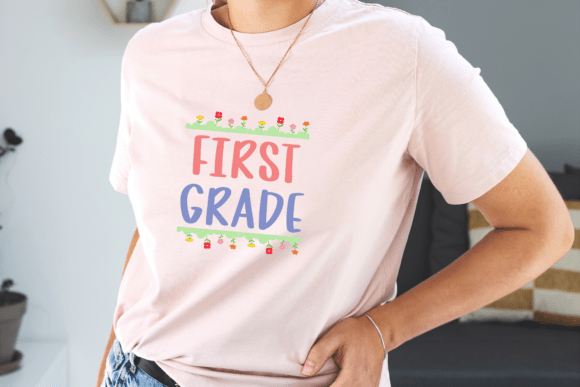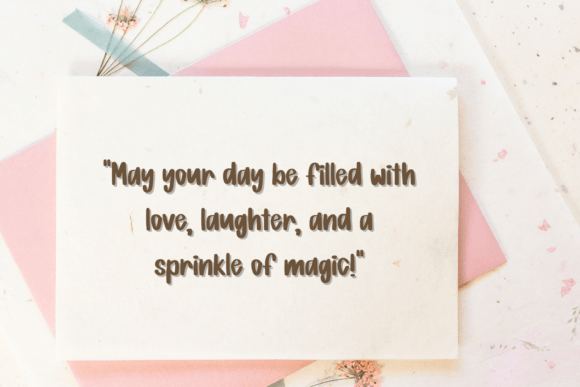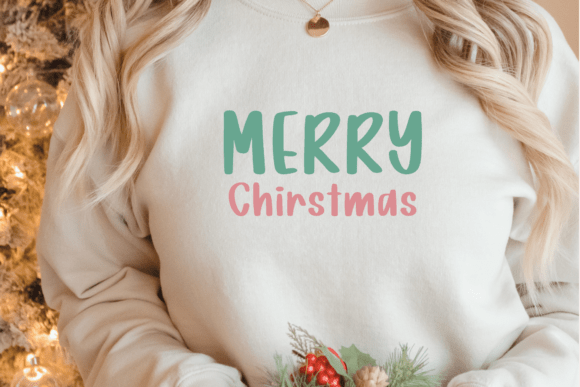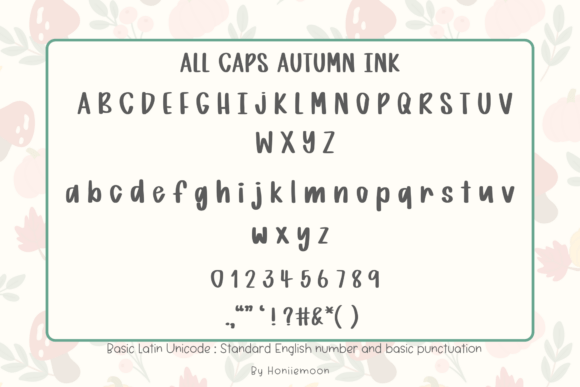
Cozy Up with Autumn Ink: The Ultimate Handwritten Script Font
As designers, we’ve all been there – stuck on a project, searching for that perfect font to bring our vision to life. I recall working on a fall-themed craft project, determined to capture the warmth and coziness of the season. That’s when I stumbled upon “Autumn Ink,” a delightfully charming handwritten script font that instantly transported me to a world of creative possibilities.
First Impressions: A Love Affair with Autumn Ink
Picture the warmth of fall, the leaves turning, the subtle aroma of pumpkin spice – “Autumn Ink” condenses all of these cozy autumn vibes into every stroke it paints. This font is an undeniable way to bring that autumn comfort into your creative projects. Here’s what I love about it:
- ✨ A playful, casual allure that’s perfect for fall-themed designs
- ✅ Infectious sense of fun that adds a personal touch to any project
- 💫 Beautifully crafted to evoke the warmth and coziness of the season
- 🎨 Highly versatile and adaptable to various design styles
A Few Quirks to Consider
While “Autumn Ink” is an amazing font, it’s not without its limitations. Here are a few things to keep in mind:
- ⚠️ May not be suitable for very formal or traditional designs
- ⚠️ Limited use of uppercase letters, but perfect for titles and headings
- Experiment with OpenType features, such as ligatures and stylistic alternates, to add personality to your text
The Story Behind Autumn Ink
While the true story behind “Autumn Ink” remains a mystery, it’s easy to imagine a designer sitting by a cozy fireplace, surrounded by fall leaves and warm lighting, crafting this beautiful font. The attention to detail and love that went into creating “Autumn Ink” shines through in every stroke.
| Font Name | Autumn Ink Font |
| Author | Honiiemoon |
| What makes Autumn Ink unique? | Its playful, casual allure and infectious sense of fun, perfect for capturing the essence of fall. |
| Is Autumn Ink suitable for body text? | While beautiful, “Autumn Ink” is best used for titles, headings, and short paragraphs due to its script nature. |